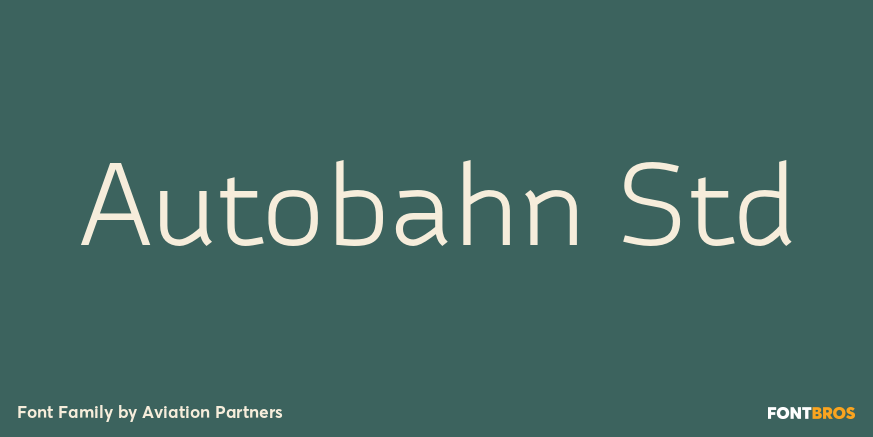
About Autobahn Std
Autobahn is a robust masculine sans of near monoline thickness and angular characteristics. Autobahn Std has a full Latin 1 character set but no CE, Cyrillic or Opentype features. For the extended character set and Opentype features, see Autobahn Pro.…